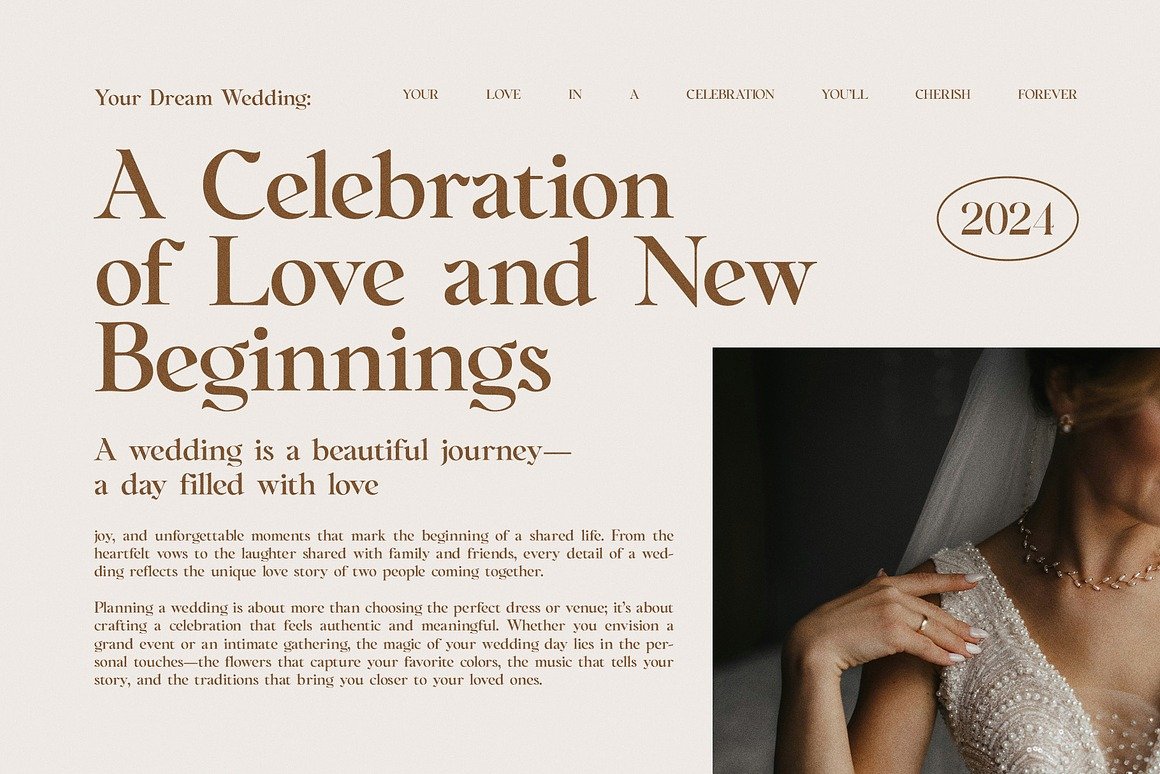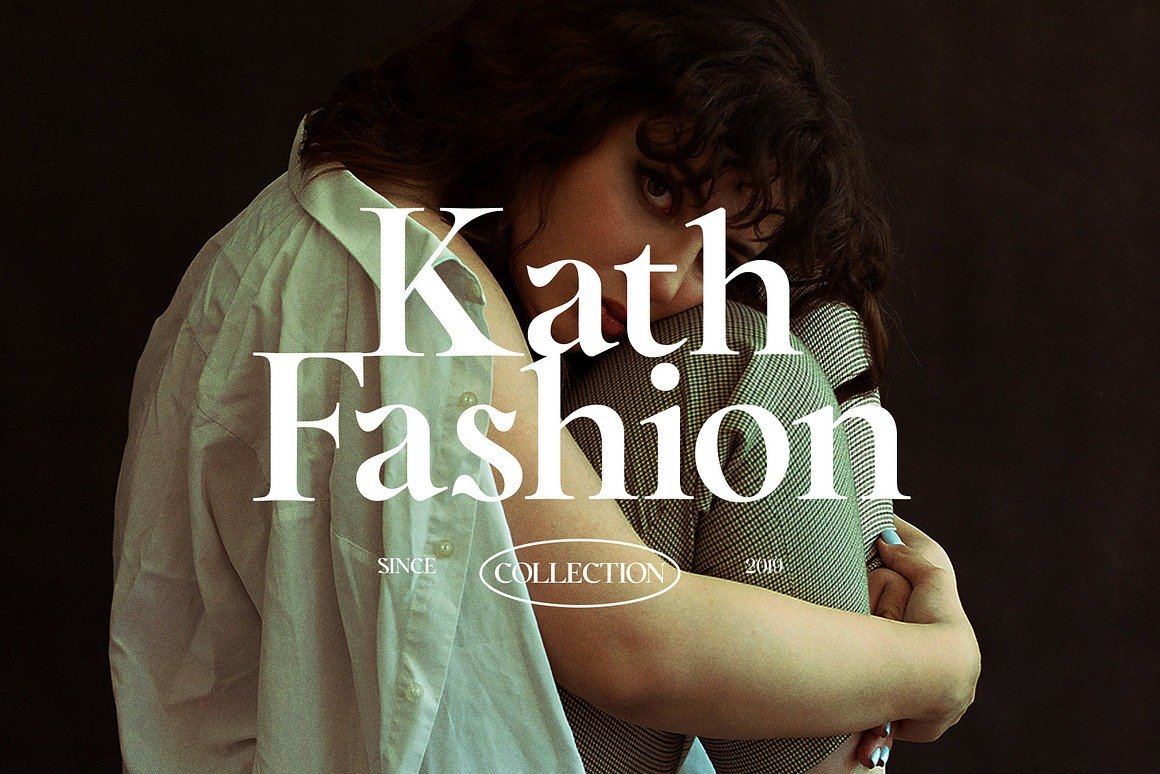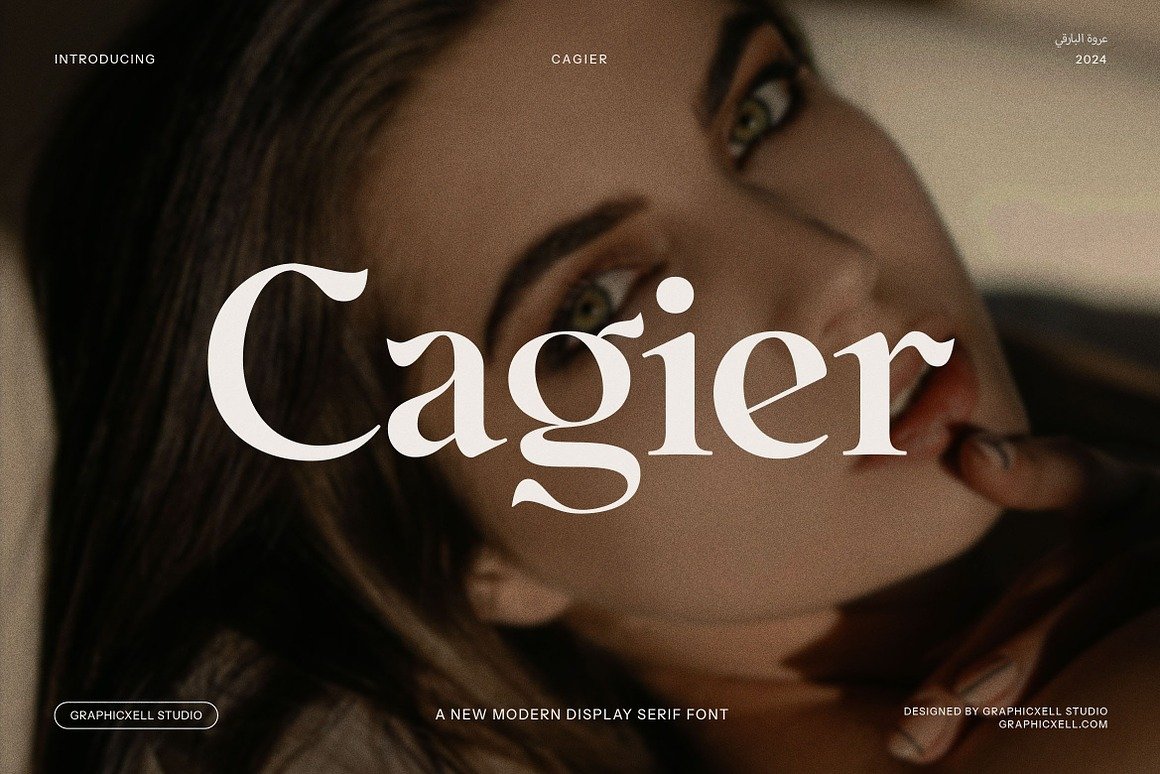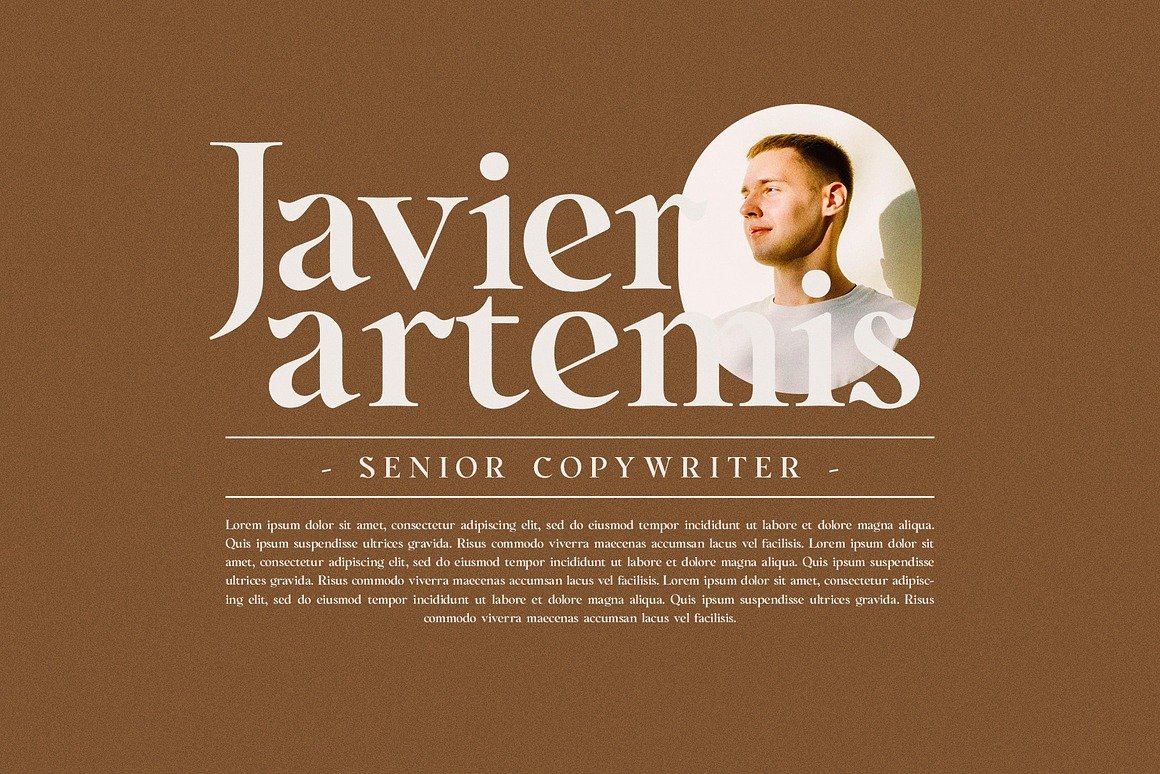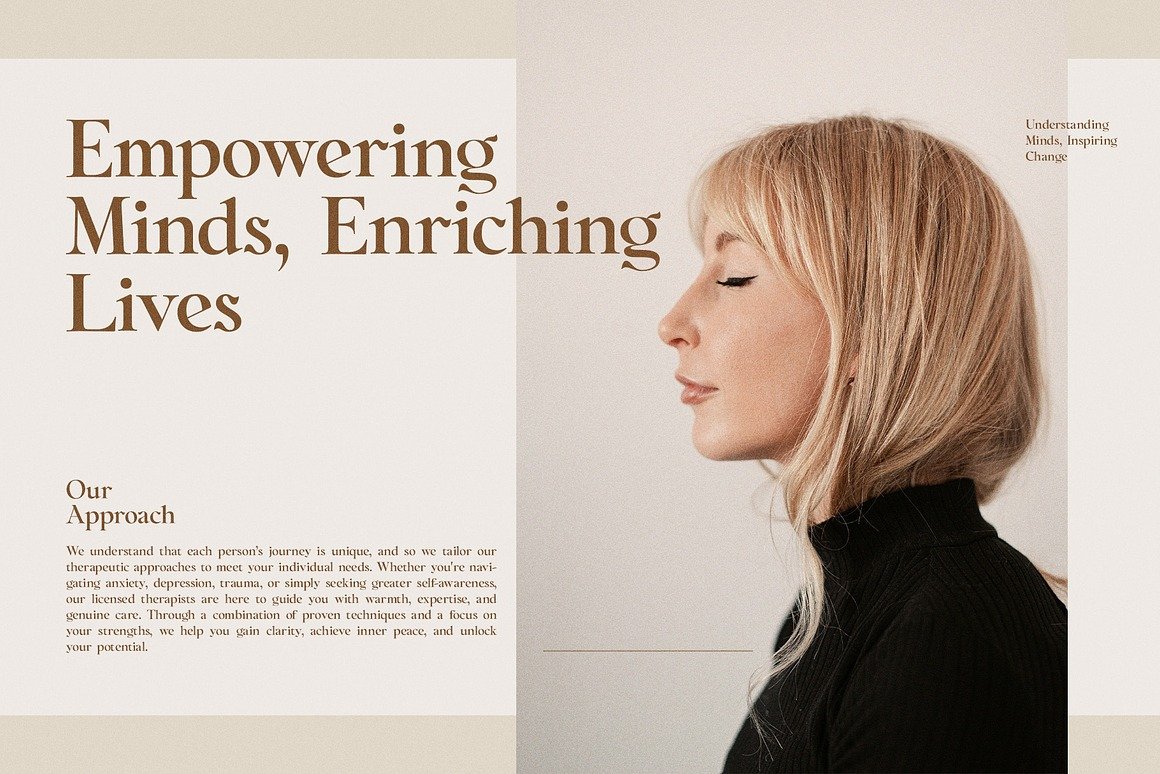
This is Cagier – Elegant Display Font
Cagier - Elegant Display Font
Cagier – The Elegant Display Font That Redefines Sophistication
Typography is one of the most powerful tools in visual communication. A well-chosen typeface doesn’t just present text — it conveys character, sets tone, and creates emotional resonance. Among the many typefaces available today, a font that has been steadily gaining attention for its refined aesthetic and timeless appeal is Cagier – Elegant Display Font. Blending vintage charm with contemporary design sensibilities, Cagier stands out as a versatile serif display font ideal for branding, editorial work, luxury packaging, and creative projects of all kinds.